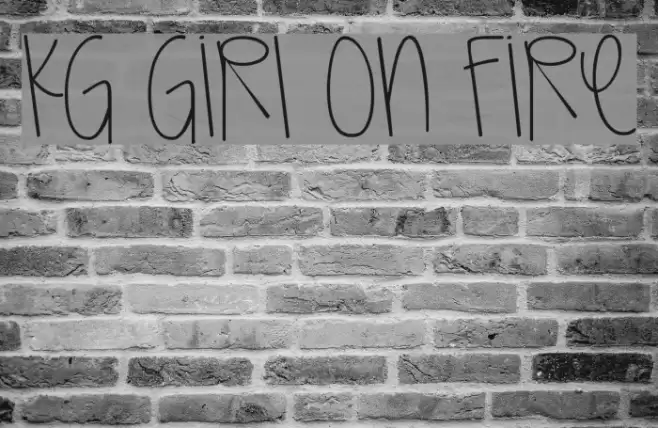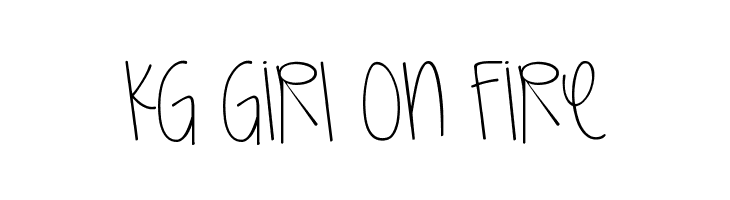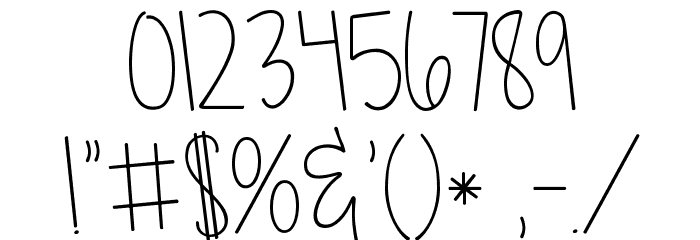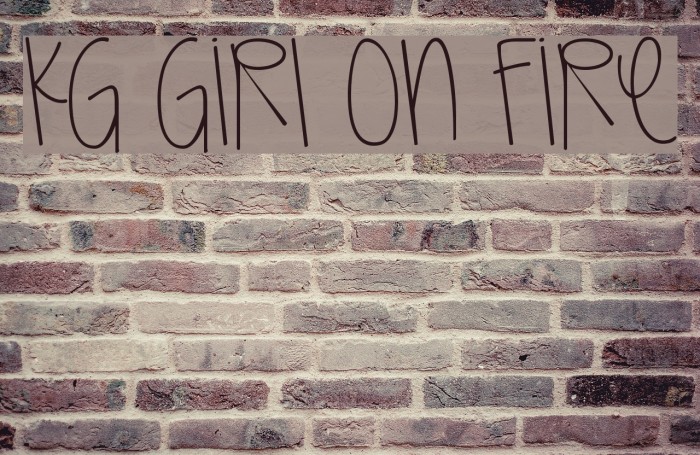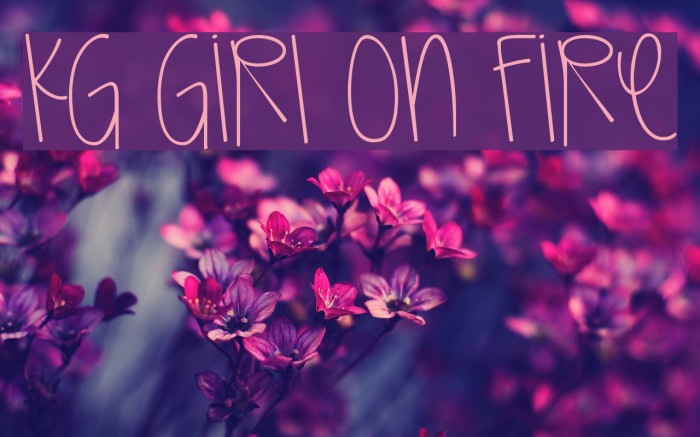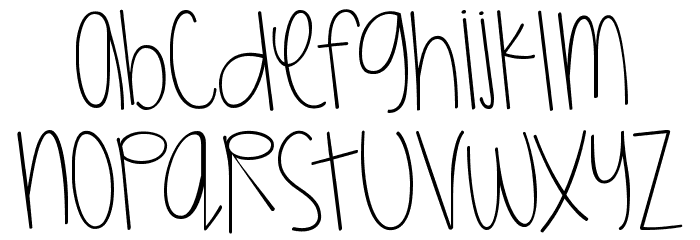
KG Girl On Fire Font
KG Girl On Fire Description
This playful and whimsical font features tall, narrow characters with a handwritten style. The strokes are smooth and slightly irregular, giving it a casual and friendly appearance. The uppercase and lowercase letters maintain a consistent height, contributing to its uniformity. Numbers and special characters are designed with the same playful touch, making them blend seamlessly with the alphabet. The font's overall look is light and airy, making it suitable for projects that require a personal and informal touch.
A playful, handwritten font with tall, narrow characters and a casual style from Uncategorized fonts.
- Proposed Projects: Ideal for greeting cards, children's books, playful branding, and personal projects.
- Weight: Light
- Overall Style: Casual, Playful
- Use Case: Headlines, Informal text, Creative projects